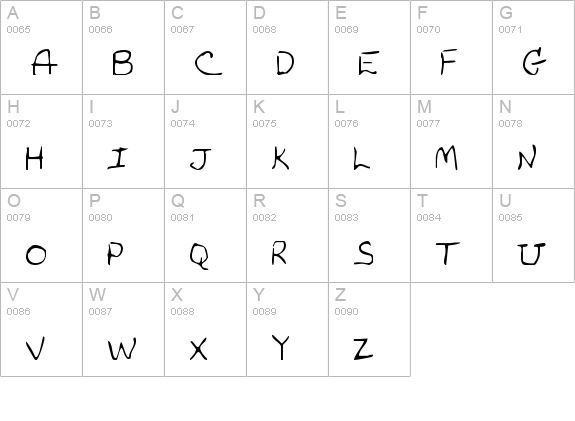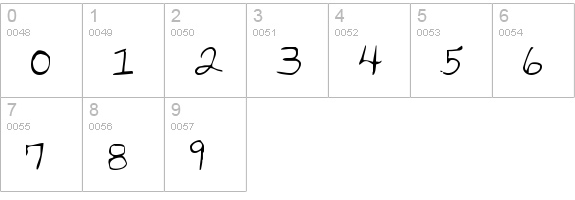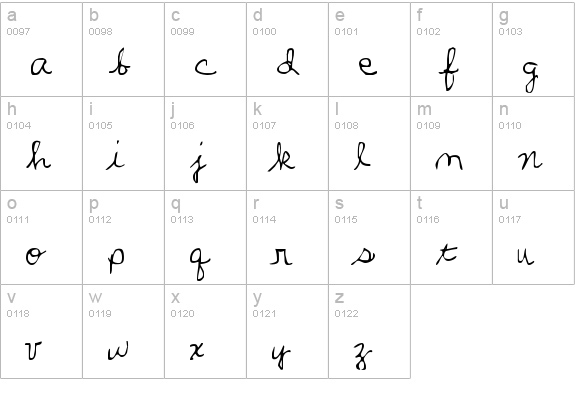
Parker's Hand Font Details
Parker's Hand font is a delightful and whimsical typeface that adds a touch of charm and sophistication to any project. With its elegant and flowing letterforms, this font exudes a sense of handmade craftsmanship that is perfect for adding a personal touch to invitations, greeting cards, and more. Inspired by the timeless beauty of calligraphy, Parker's Hand font captures the essence of traditional penmanship with its graceful curves and subtle flourishes. Each letter is carefully crafted to create a harmonious balance between elegance and readability, making it a versatile choice for both print and digital designs. One of the best things about Parker's Hand font is that it is completely free. Yes, you read that right! This stunning typeface is freely available to download at FontsMarket.com, allowing you to add a touch of sophistication to your projects without breaking the bank. Whether you're a professional designer or a casual DIY enthusiast, this font offers endless possibilities for creating beautiful and unique designs. So why wait? Download Parker's Hand font today and let your creativity flow. Whether you're designing wedding invitations, crafting a heartfelt letter, or adding a personal touch to a digital project, this font will elevate your work to new heights. Don't miss out on this incredible opportunity to enhance your designs with a font that is both visually striking and absolutely free. Visit FontsMarket.com now and start creating with Parker's Hand font!